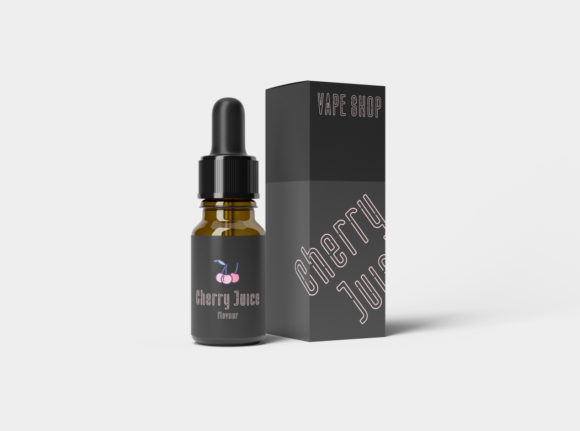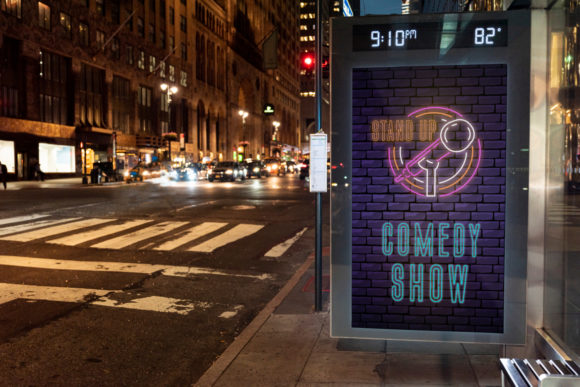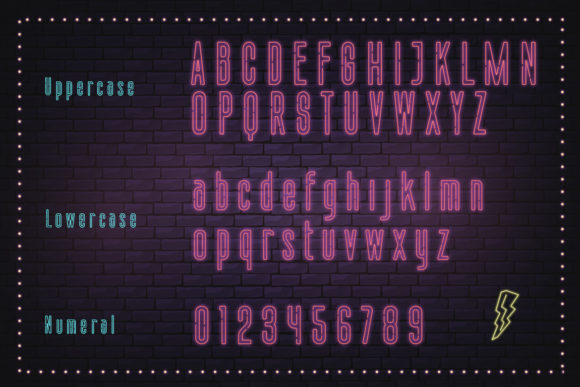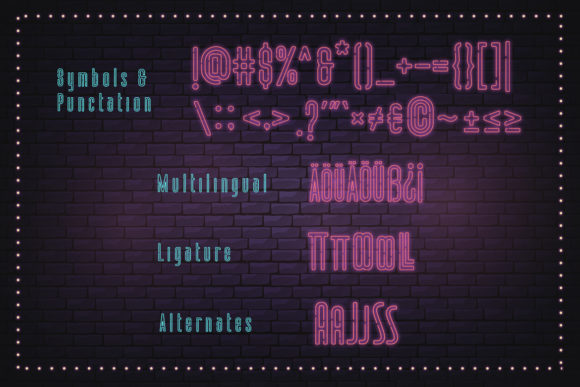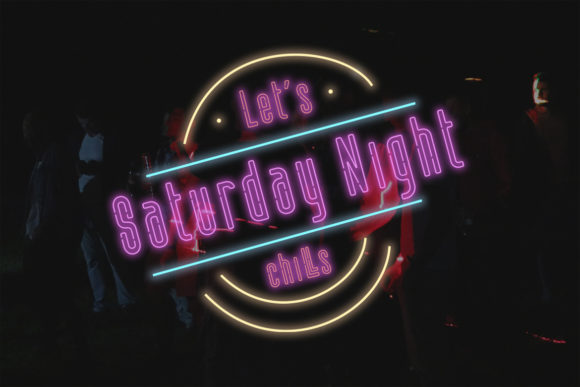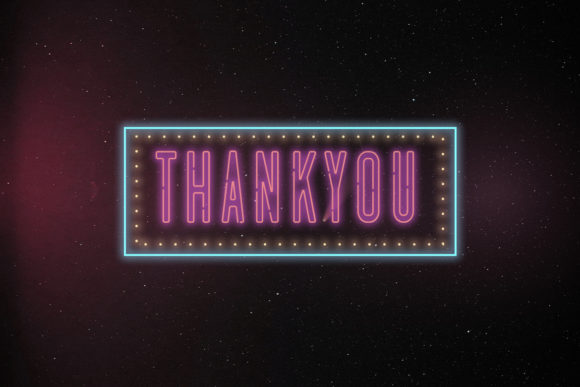
Introduction to Night Vibes Font
There’s something magical about the moment when a design comes together, and you know you’ve created something truly special. It’s that rush of excitement when you see your vision take shape, and you can’t wait to share it with the world. For designers, it’s a moment that never gets old, and it’s exactly what the Night Vibes Font is designed to evoke.
As a modern display font, Night Vibes Font stands out with its neon light effect, perfect for a nightlife themed design that’s sure to bring your creative project to life. With a high-quality design that’s free to download, this font is a valuable resource for designers looking to add a touch of sophistication to their designs. Whether you’re working on a design project that requires a transparent background or just need a font that’s going to make your design pop, Night Vibes Font is the perfect choice.
Key Features of Night Vibes Font
- Unique, high-quality design for creative projects, available for free download.
- Transparent background, allowing for seamless integration into various design resources.
- Supports a wide range of languages, making it an ideal design resource for global projects.
- Comes in a single font size, but can be easily scaled up or down for various design needs.
- Perfect for creating a sleek, modern look in any creative project, from branding to digital art.
Honest Review: Night Vibes Font
I recently came across the Night Vibes Font and was excited to give it a try. As a designer, I’m always on the lookout for high-quality design resources to elevate my creative projects.
Here are some things that work well about the Night Vibes Font:
- ✨ The transparent background makes it easy to use in a variety of design contexts.
- ✨ The font is highly customizable, with a range of styles and sizes to choose from.
- ⚠️ The font is not as versatile as some other options, and may not work well in certain design scenarios.
Overall, I’m impressed with the Night Vibes Font and think it’s a great addition to any designer’s toolkit. While it may not be perfect, it’s a high-quality design resource that’s perfect for creative projects on a budget.
How to Use Night Vibes Font
The Night Vibes Font is a high-quality design resource ideal for creative projects requiring a unique and eye-catching aesthetic. This font is available for free download, making it a valuable addition to any designer’s toolkit.
For optimal results, use the Night Vibes Font in conjunction with other high-quality design resources. Experiment with different font sizes, colors, and placement to achieve a unique and captivating design.
The Night Vibes Font is ideal for creative projects requiring a modern and edgy aesthetic. Common use cases include:
- Website headers
- Event invitations
Comparison: Cosmic Sans has a more classic and timeless feel compared to Night Vibes Font’s edgy and modern aesthetic.
2. Glacial
Glacial is a free download font that’s perfect for creative projects that require a touch of coolness and sophistication. It features a transparent background and a high-quality design that makes it ideal for use in logos, headings, and titles.